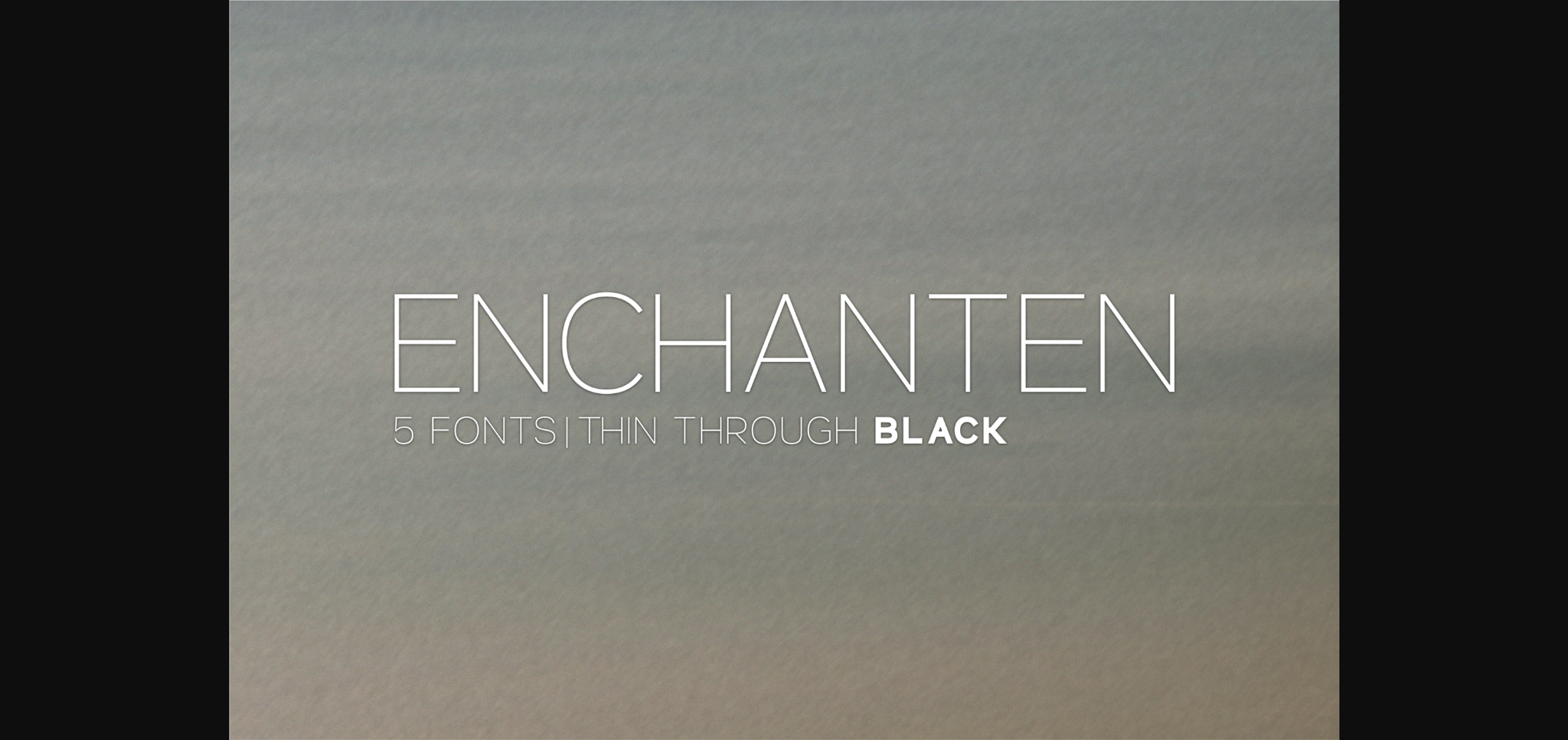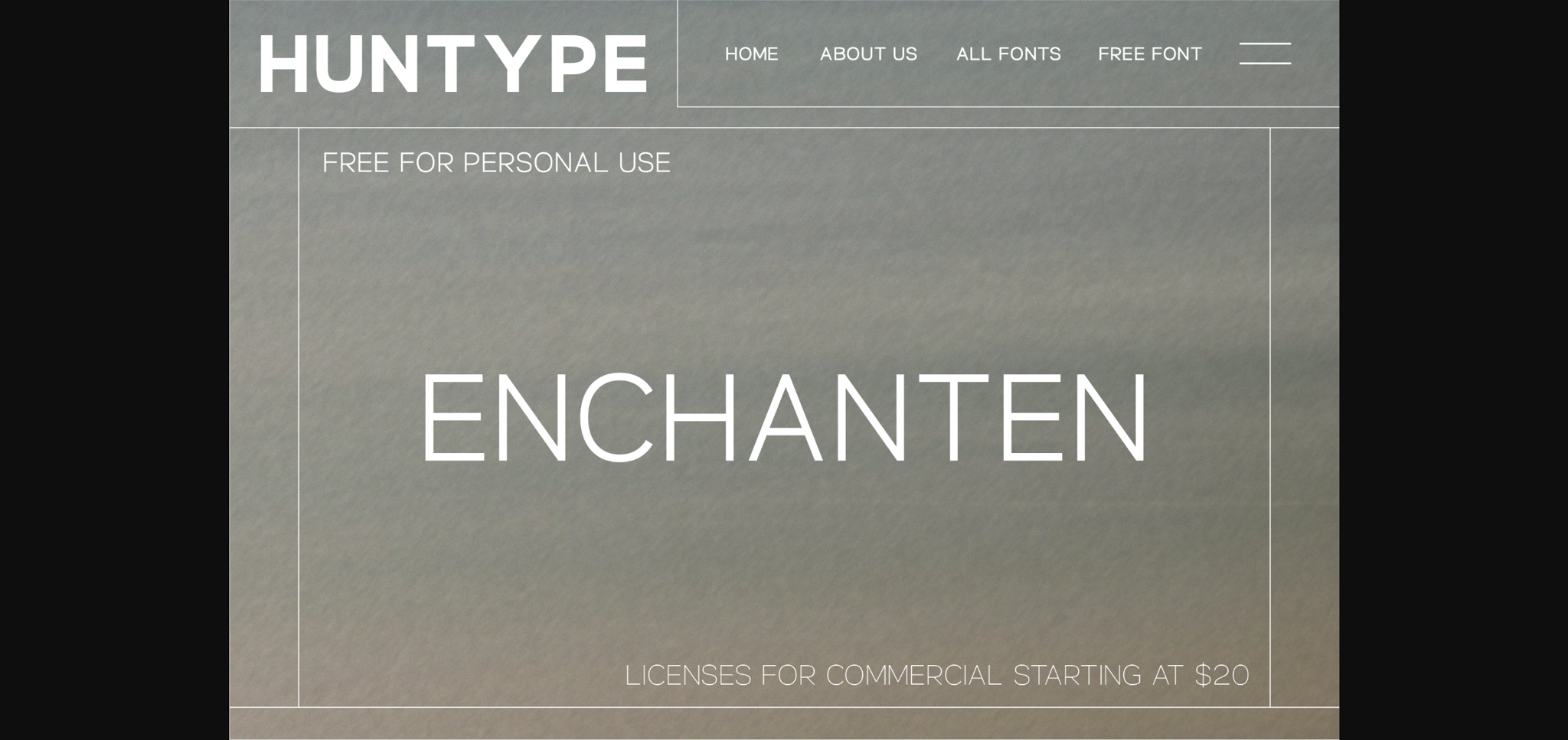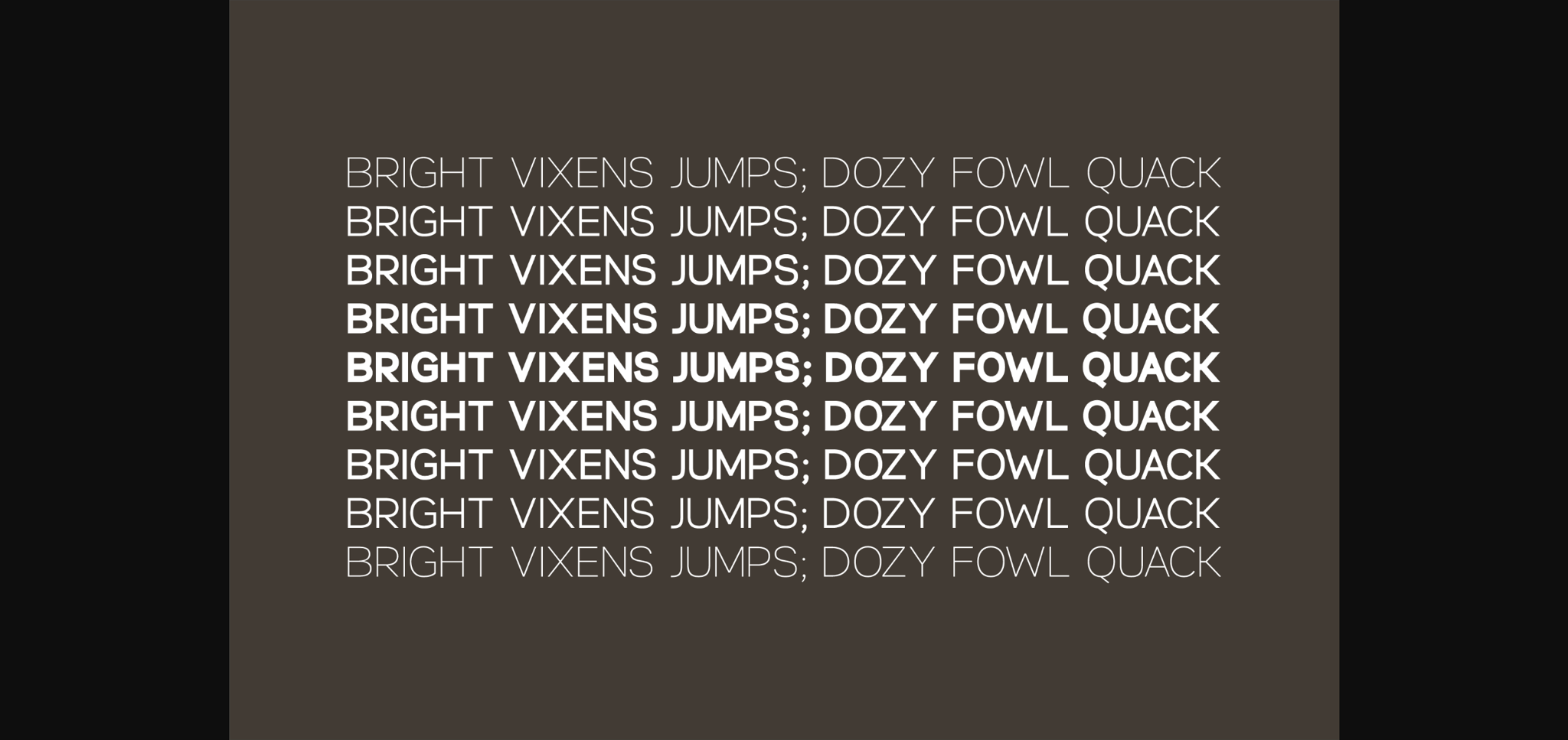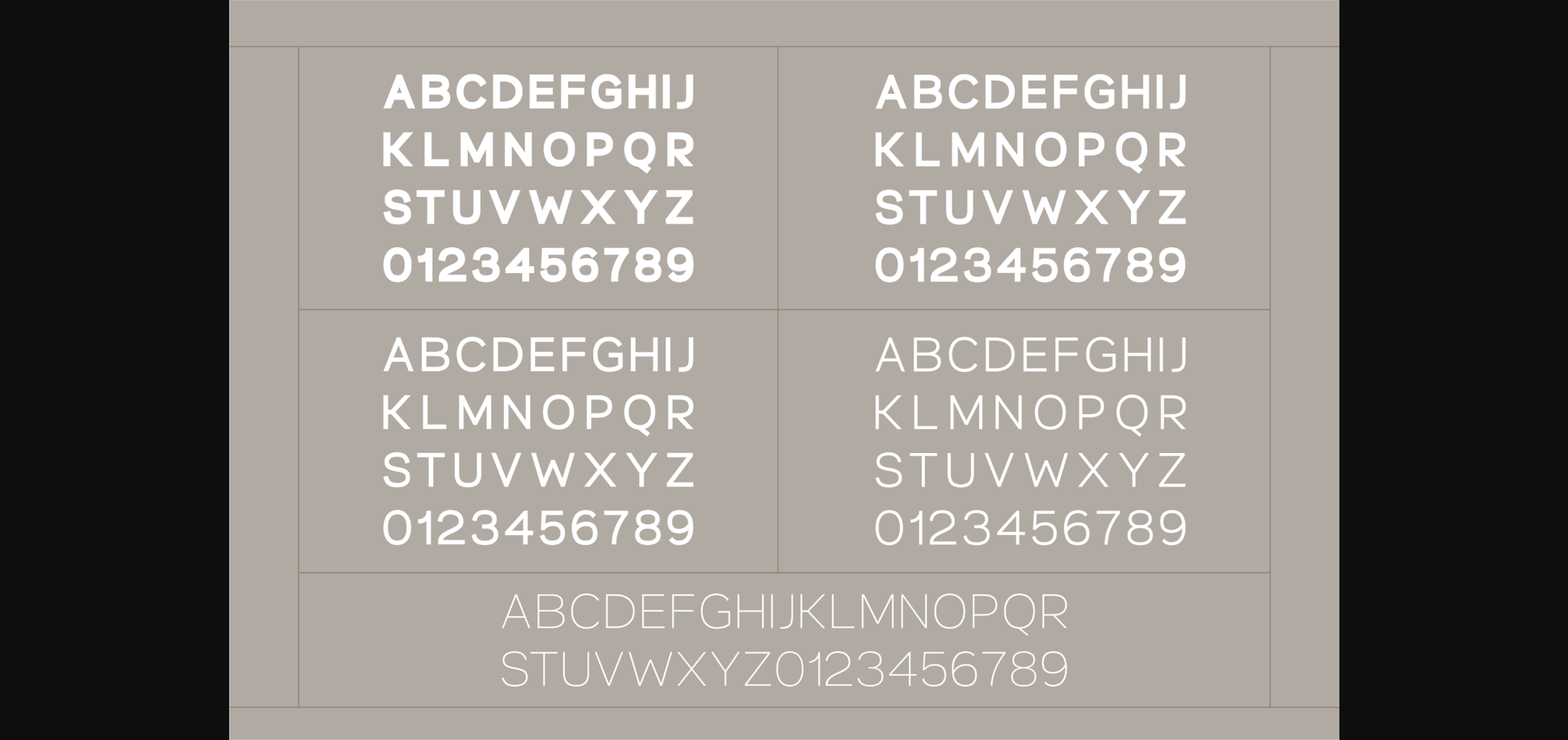
Enchanten Family Font
About Enchanten Family Font
Unveiling the Enchanten Font Family, a diligently created typeface that exudes sophistication, modern appeal, and versatility. Manifested in five carefully selected weights – THIN, LIGHT, REGULAR, BOLD, and BLACK, the Enchanten Font Family presents an extensive gamut of creative avenues for designers and content producers. Whether your inclination is towards a delicate, subtle infusion or a striking, fearless declaration, this font family’s flawless fusion of classic elegance and modern flair guarantees your projects will radiate with uniqueness and distinction.